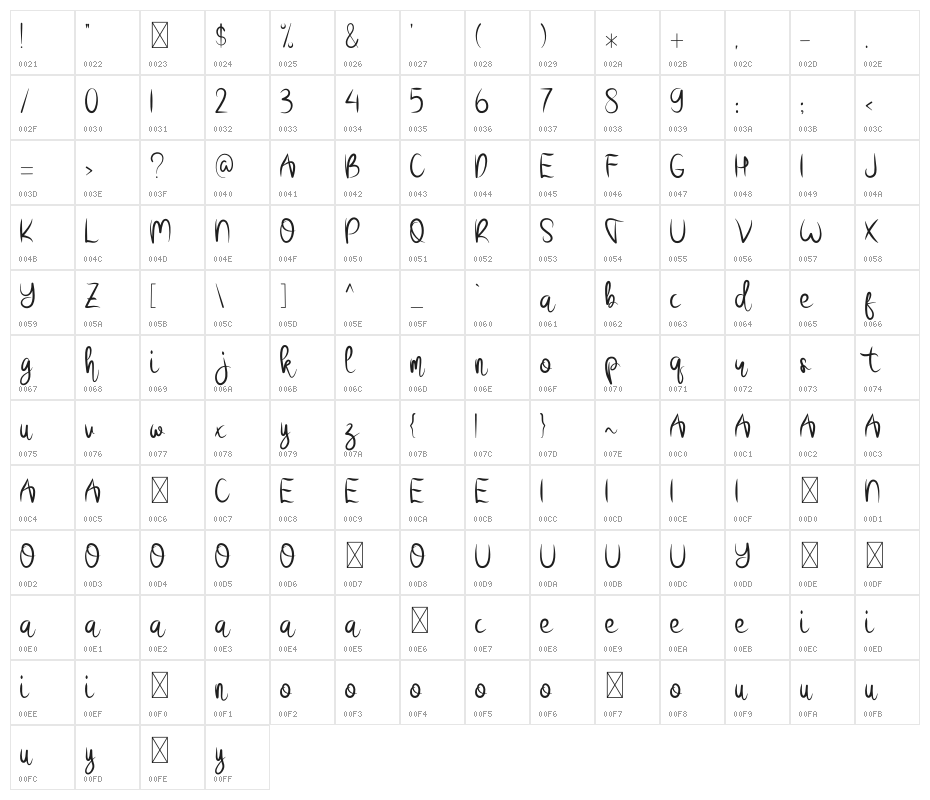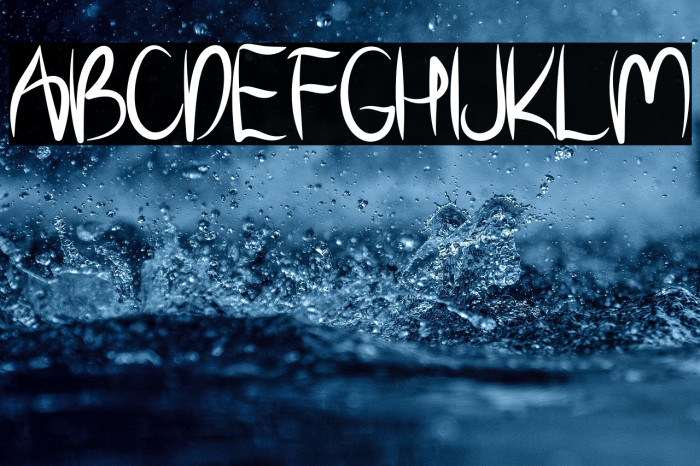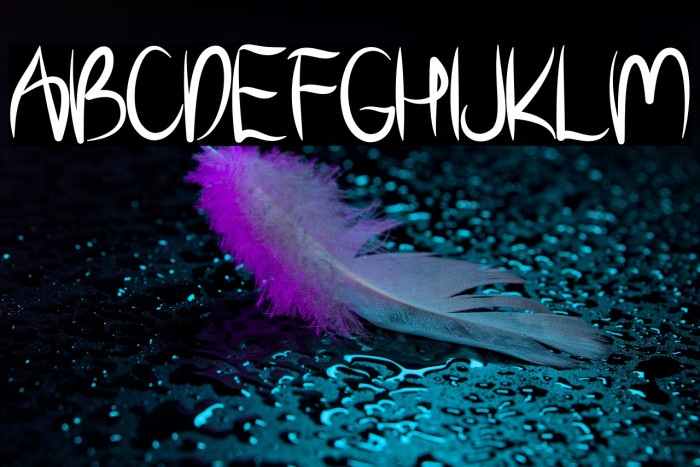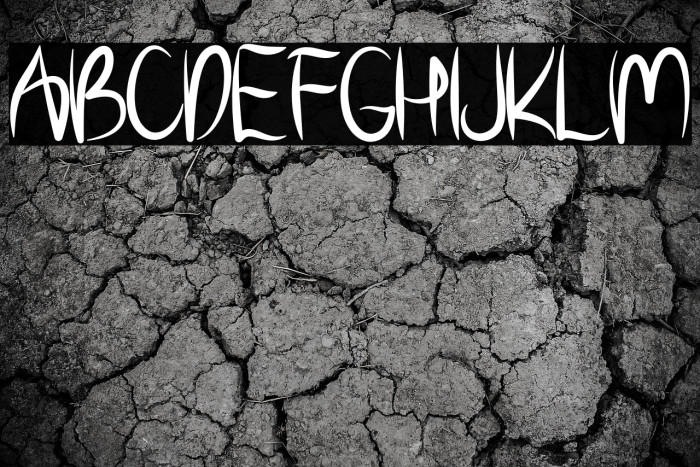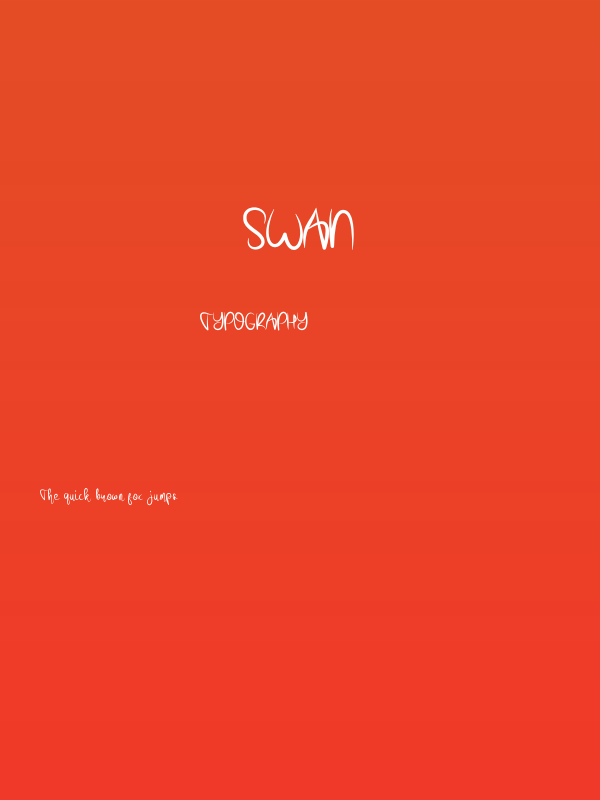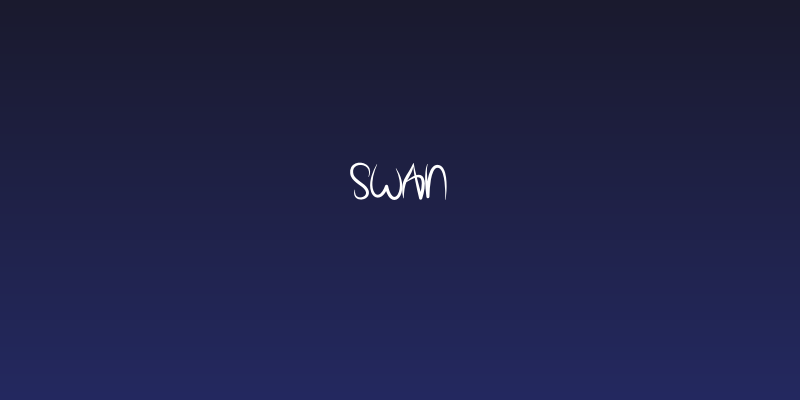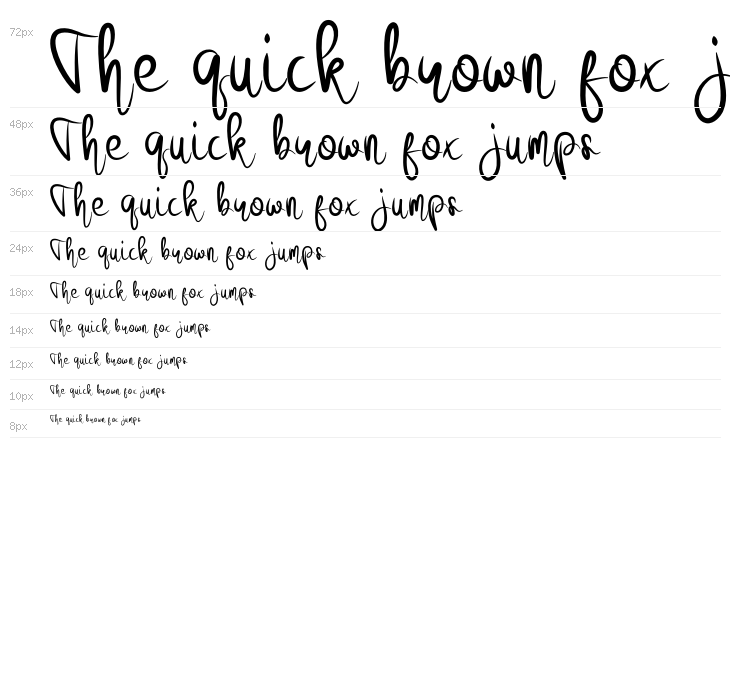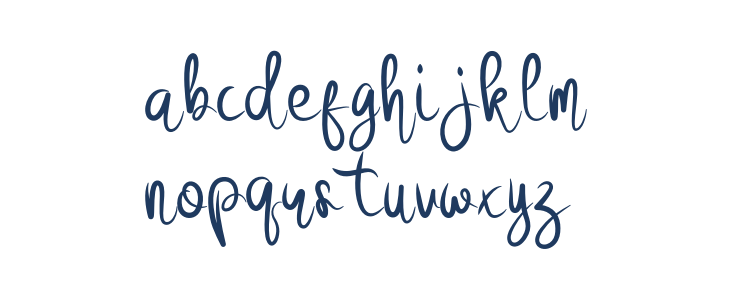
Swan Font
Swan Description
This font features a playful and dynamic handwritten style, characterized by its flowing and slightly irregular letterforms. The uppercase letters exhibit a bold and expressive quality, with varying stroke widths that add a sense of movement and energy. The lowercase letters maintain a consistent style, offering a harmonious blend of curves and angles. Numbers and special characters follow the same lively aesthetic, making them suitable for creative and informal designs. The overall appearance is both whimsical and artistic, ideal for projects that require a personal touch.